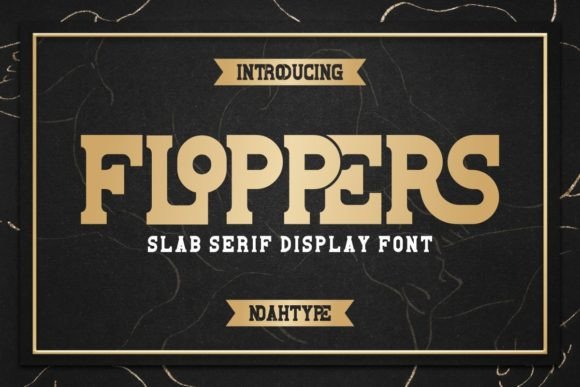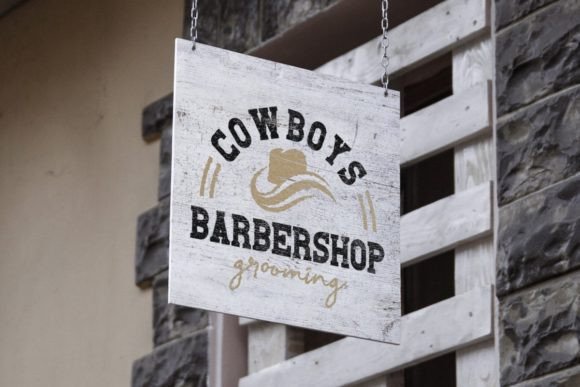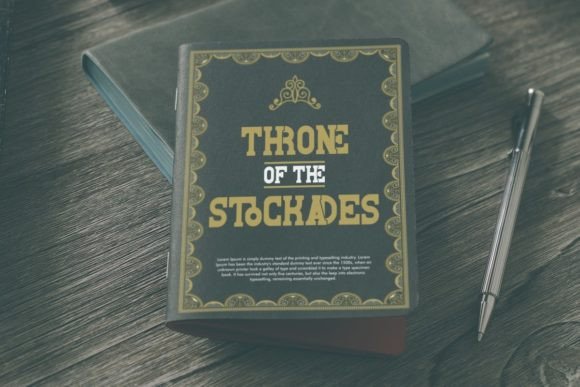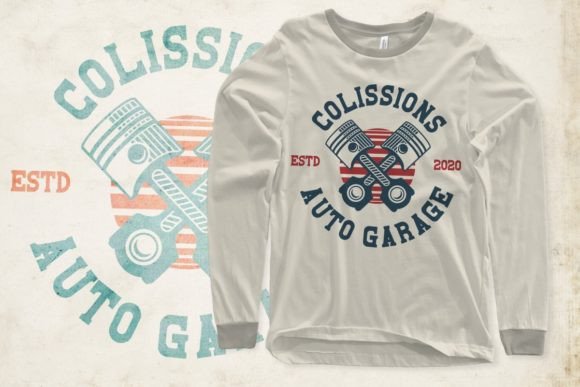
About Floppers
Floppers Font is a classic slab serif display font style. This font has an authentic and exclusive look that gives it a perfect and easy-to-read. It will be amazing for any industry: automotive, barbershop, café, equestrian, fashion, snack food, writing, and more.